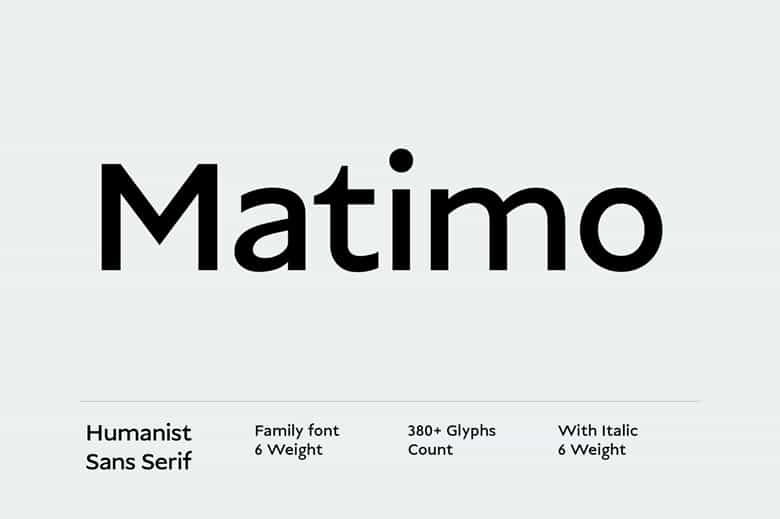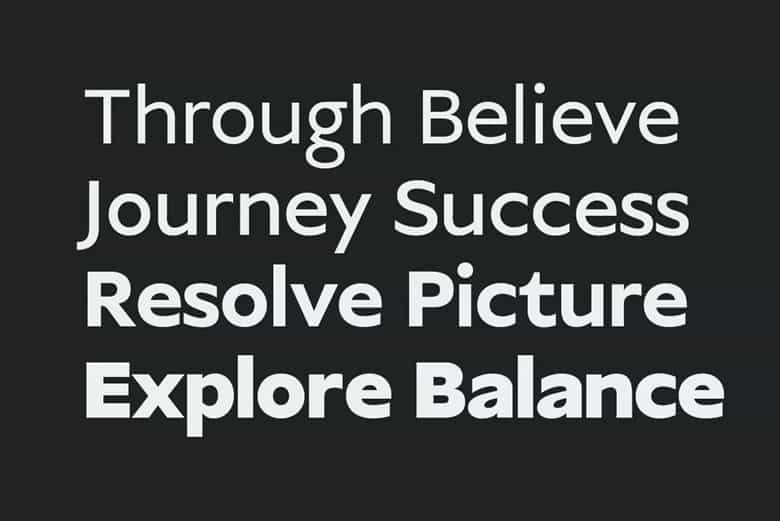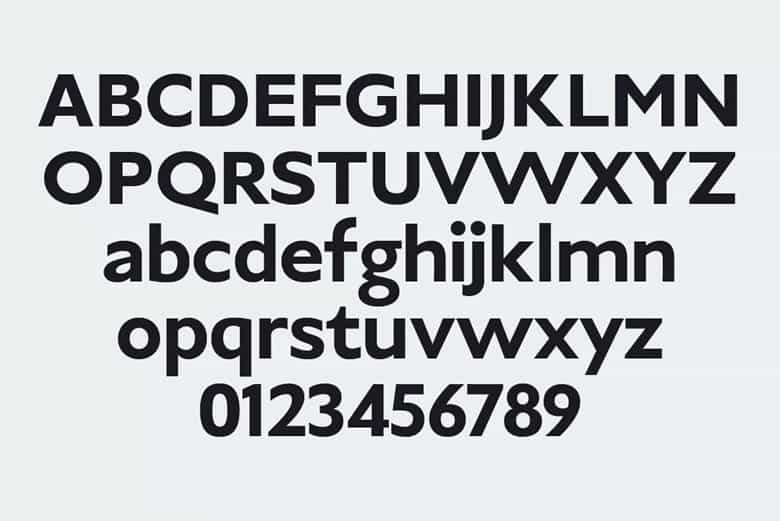
Introducing Matimo – a humanist sans-serif font family that is perfect for that elegant and readable design. With a total of 12 styles, including 6 weights: Matimo is versatile and available in 6 weights; regular, medium, semi-bold, bold, extra bold, and black, and 6 italic styles which make this font suitable for use in branding, display typography, and web design.